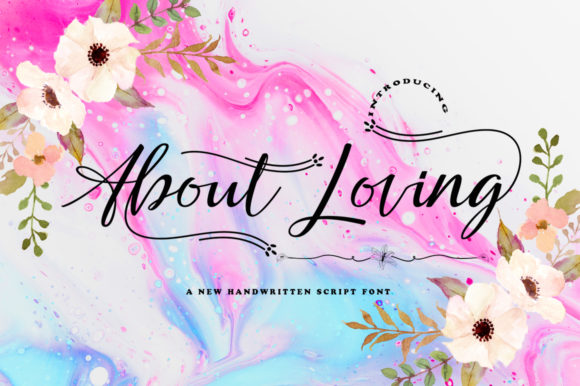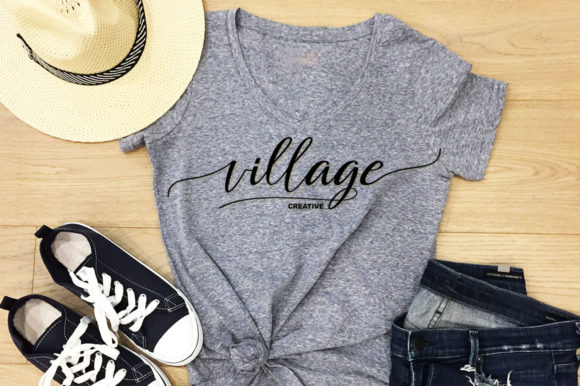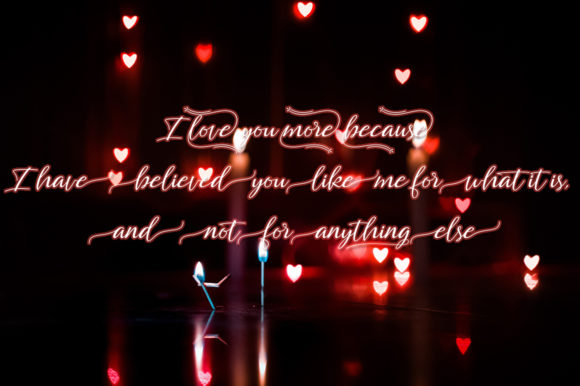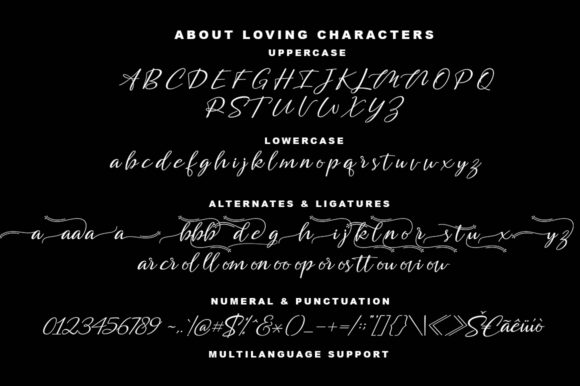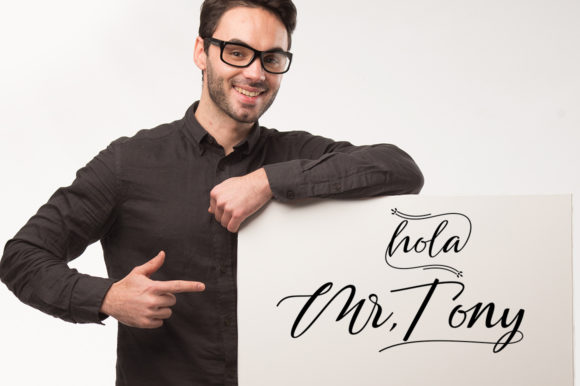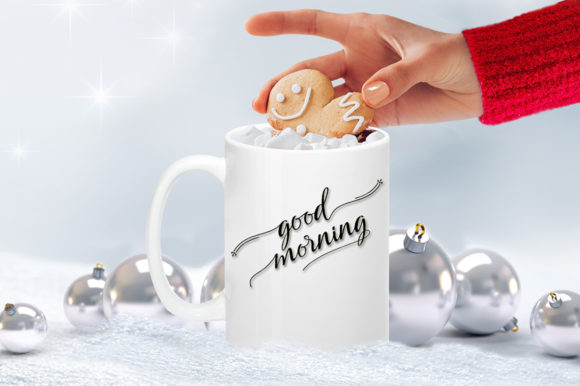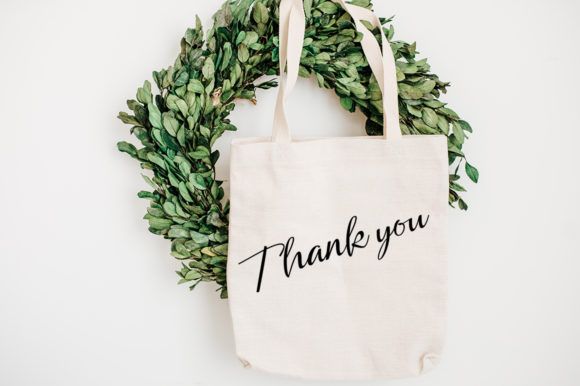
About Loving Font
About Loving is an incredible handwritten font with a lot of authenticity! It’s perfectly versatile and will add a unique spark to any design project that needs an authentic feel.